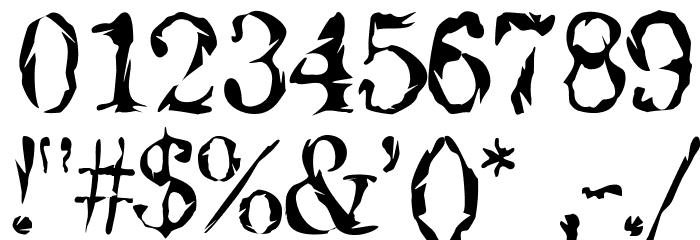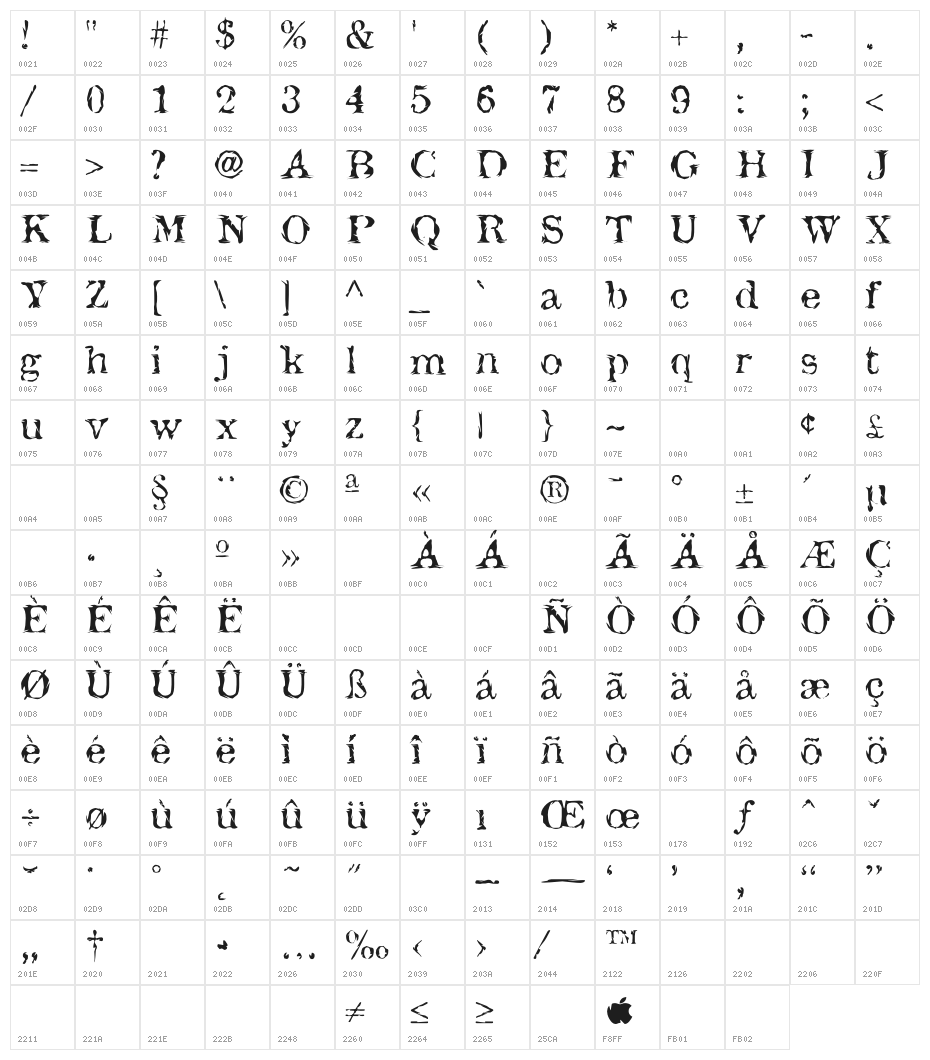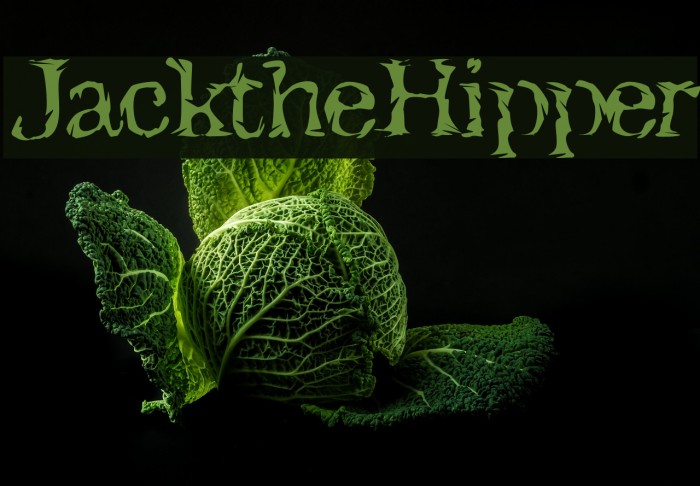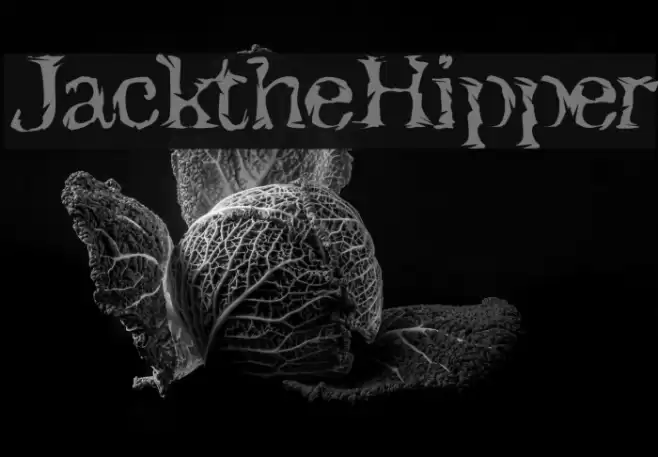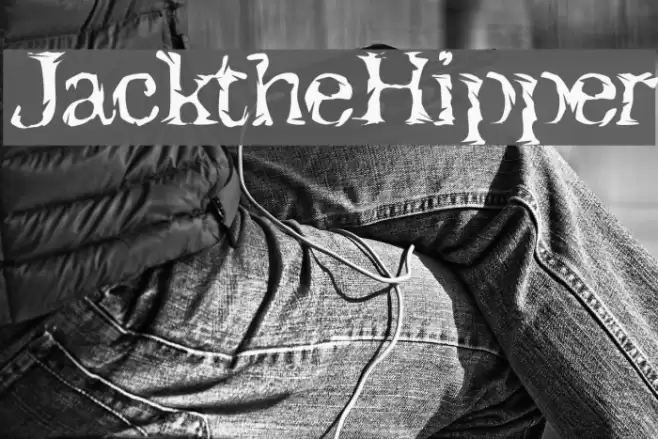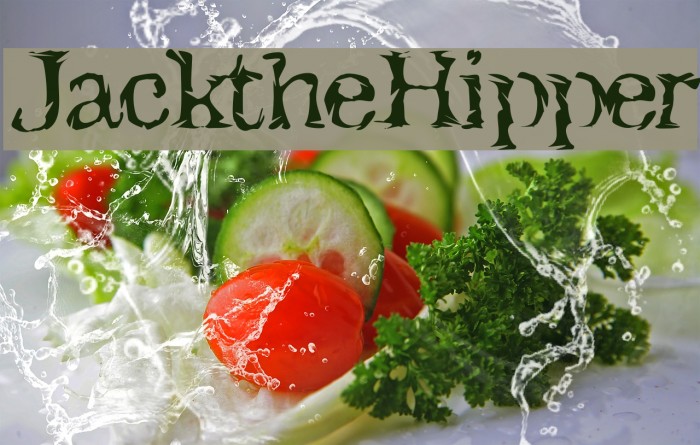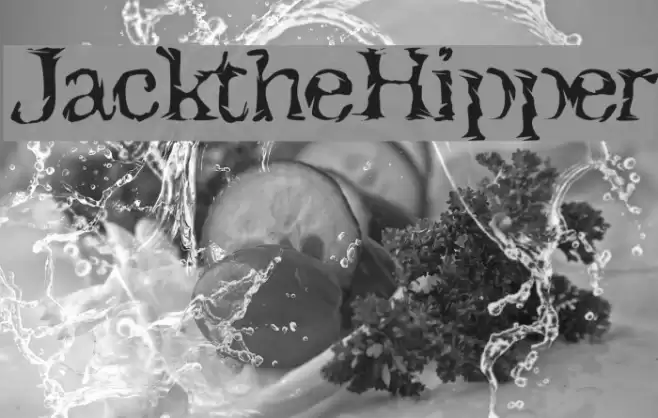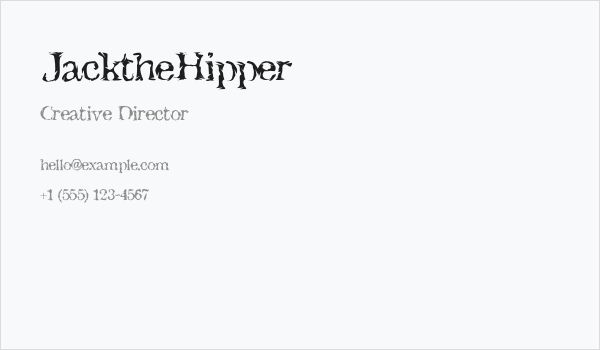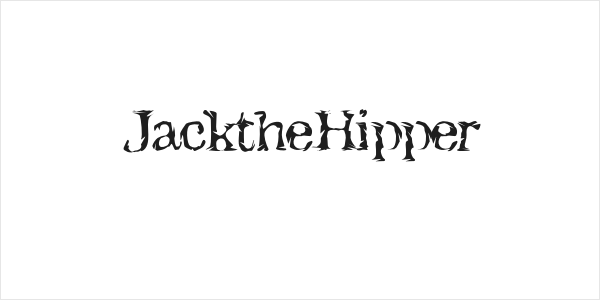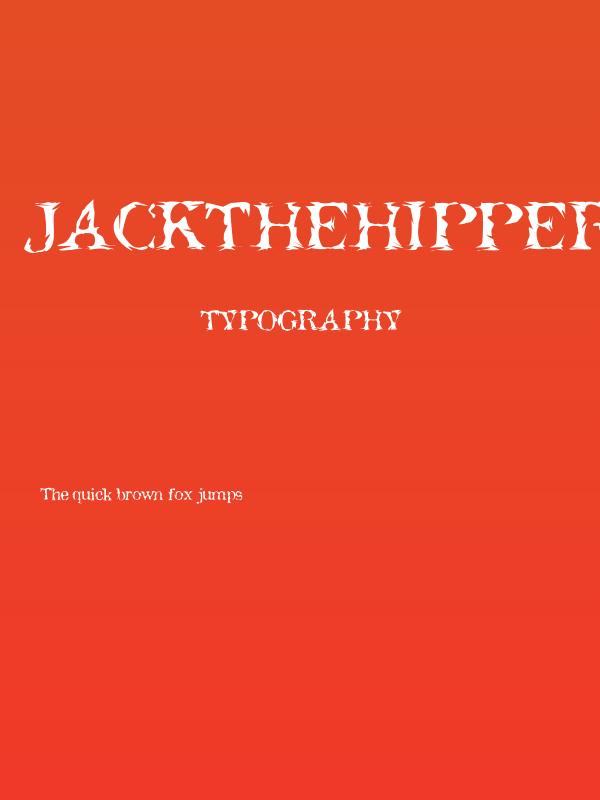
JacktheHipper Font
JacktheHipper Description
This font features a highly decorative and artistic style, characterized by sharp, jagged edges and irregular shapes that create a sense of movement and energy. The letters appear as if they are being torn or shredded, giving them a dynamic and edgy appearance. The uppercase and lowercase letters maintain a consistent theme, with each character exhibiting unique variations in its form. Numbers and special characters follow the same design principles, ensuring a cohesive look throughout. This font is visually striking and commands attention, making it ideal for projects that require a bold and unconventional aesthetic.
Proposed ProjectsPerfect for album covers, horror-themed posters, edgy branding, and creative design projects that require a bold statement.